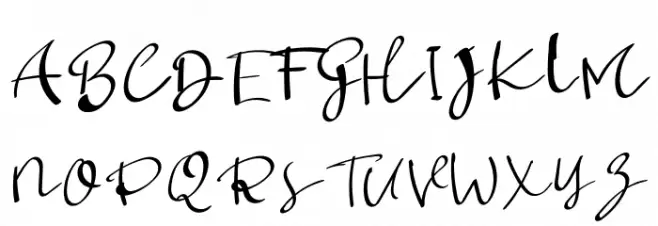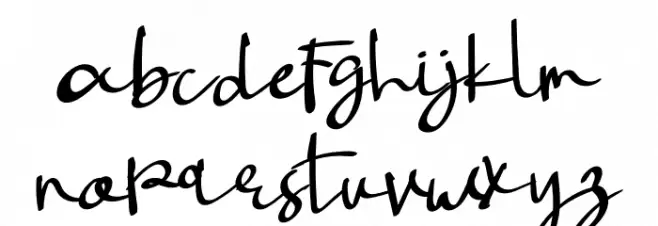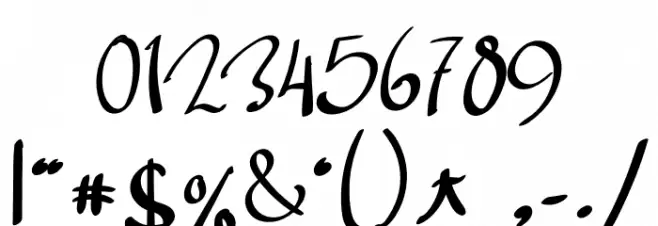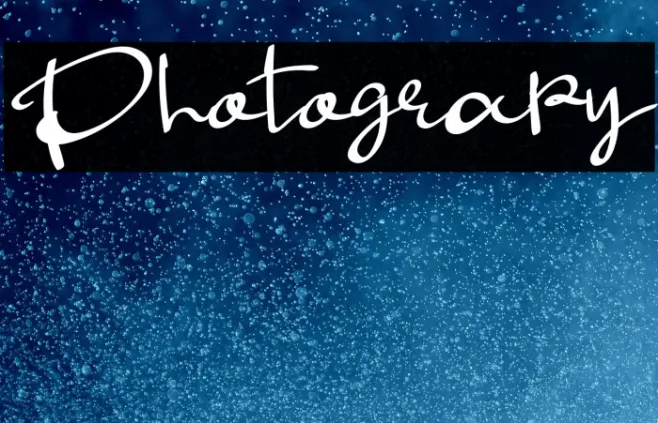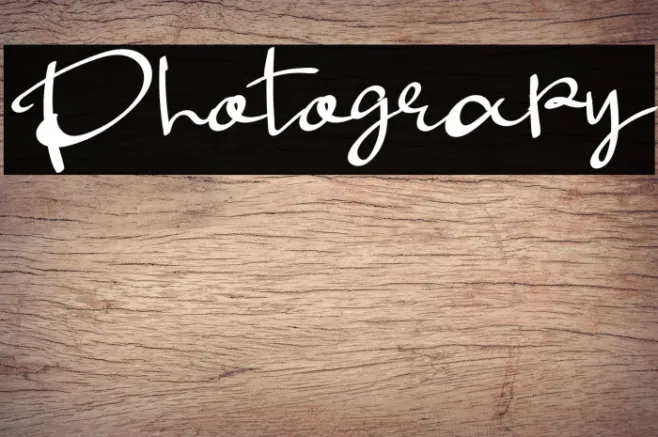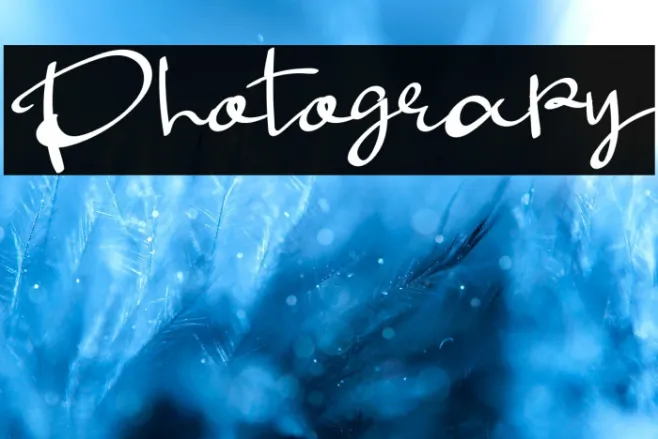
Photograpy
This font exudes a lively and dynamic energy with its fluid, handwritten style. The letters are crafted with a natural flow, featuring varying stroke widths that add a sense of movement and personality. The uppercase letters are bold and expressive, while the lowercase letters maintain a consistent rhythm, enhancing readability. Numbers and special characters are designed with the same playful and artistic flair, making them stand out. The overall appearance is both elegant and casual, suitable for projects that require a personal touch.
A lively, handwritten font with fluid strokes and dynamic character.
- Proposed Projects: Ideal for wedding invitations, personal branding, greeting cards, and artistic posters.
- Overall Style: Decorative
- Use Case: Logos, Headlines, Invitations